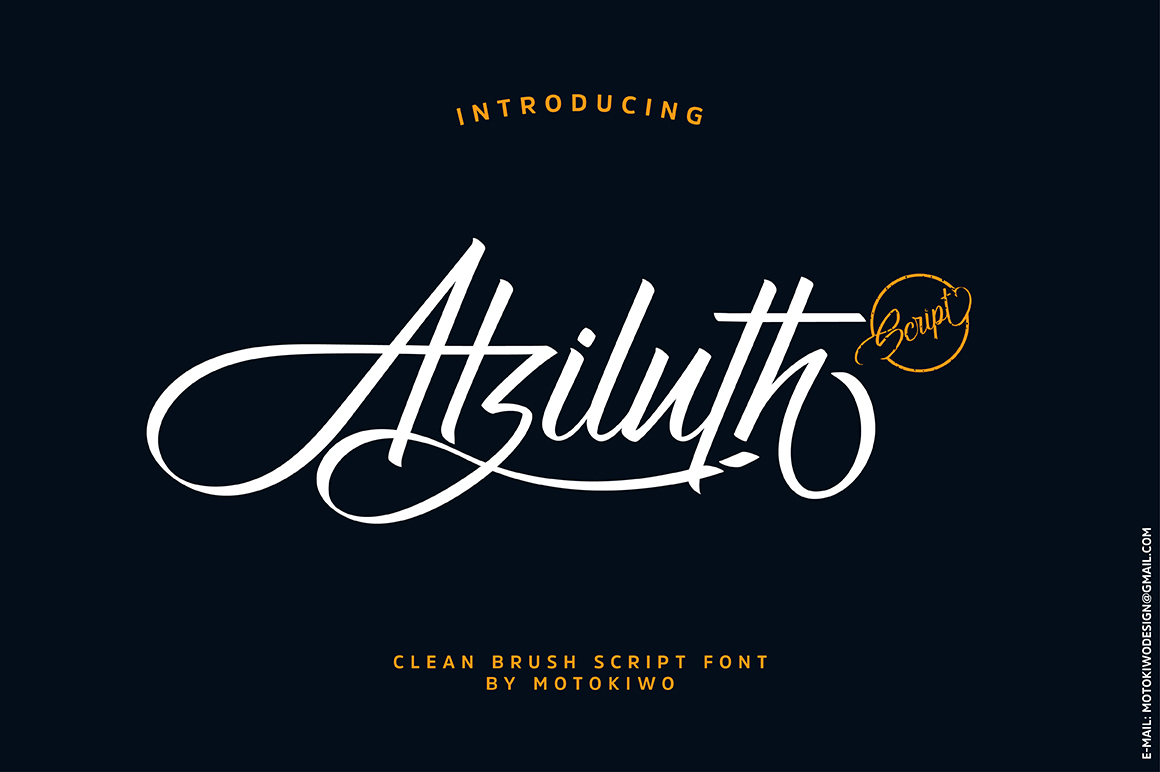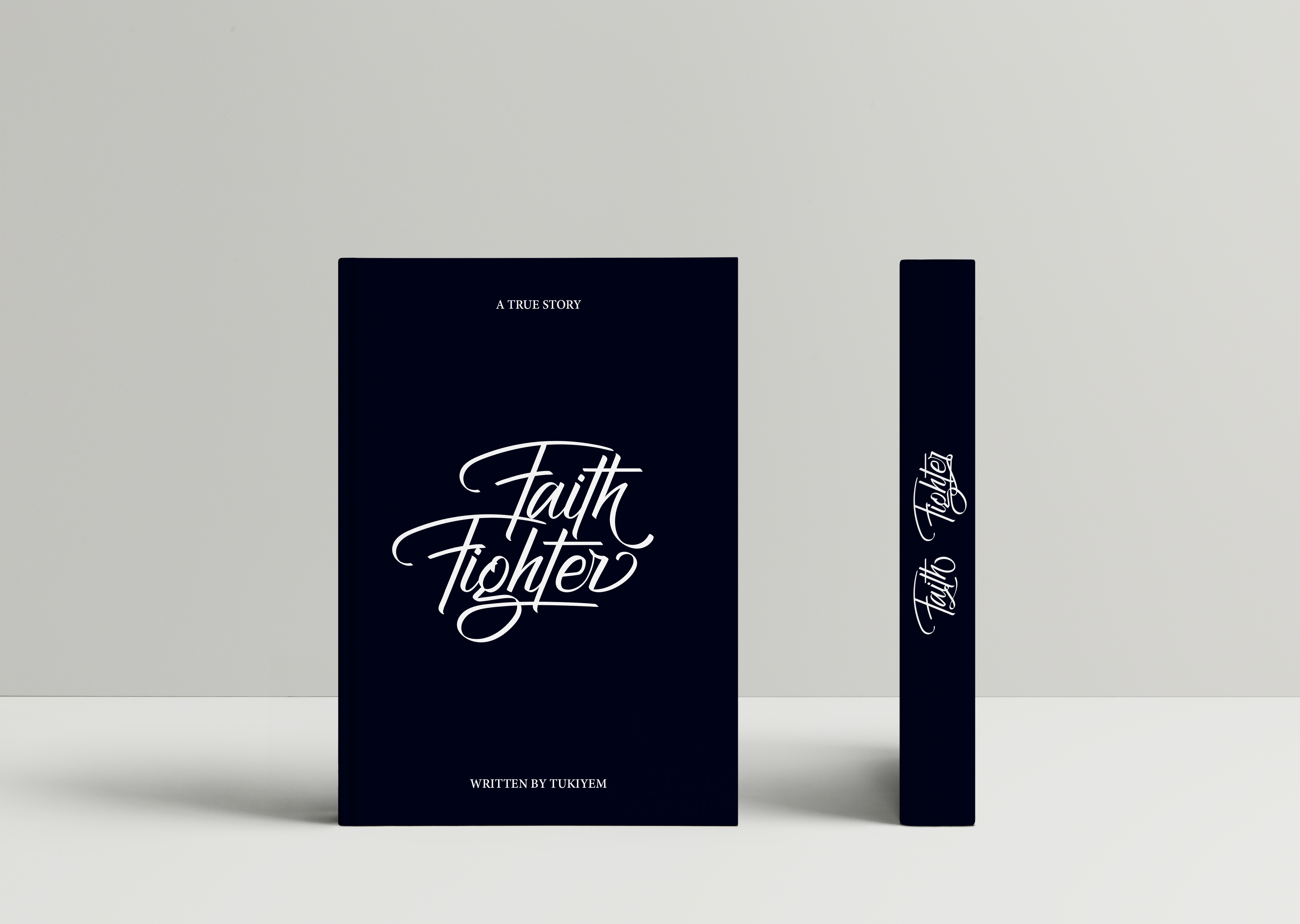
Atziluth Script Font
Atziluth Script is a typeface based on brush calligraphy, very suitable for creative design projects such as books, magazines, packaging, branding, signage and more. Easy to use with more than 340+ Glyphs included Ligatures, Contextual Alternates, Stylistic Alternates, and also Swashes.